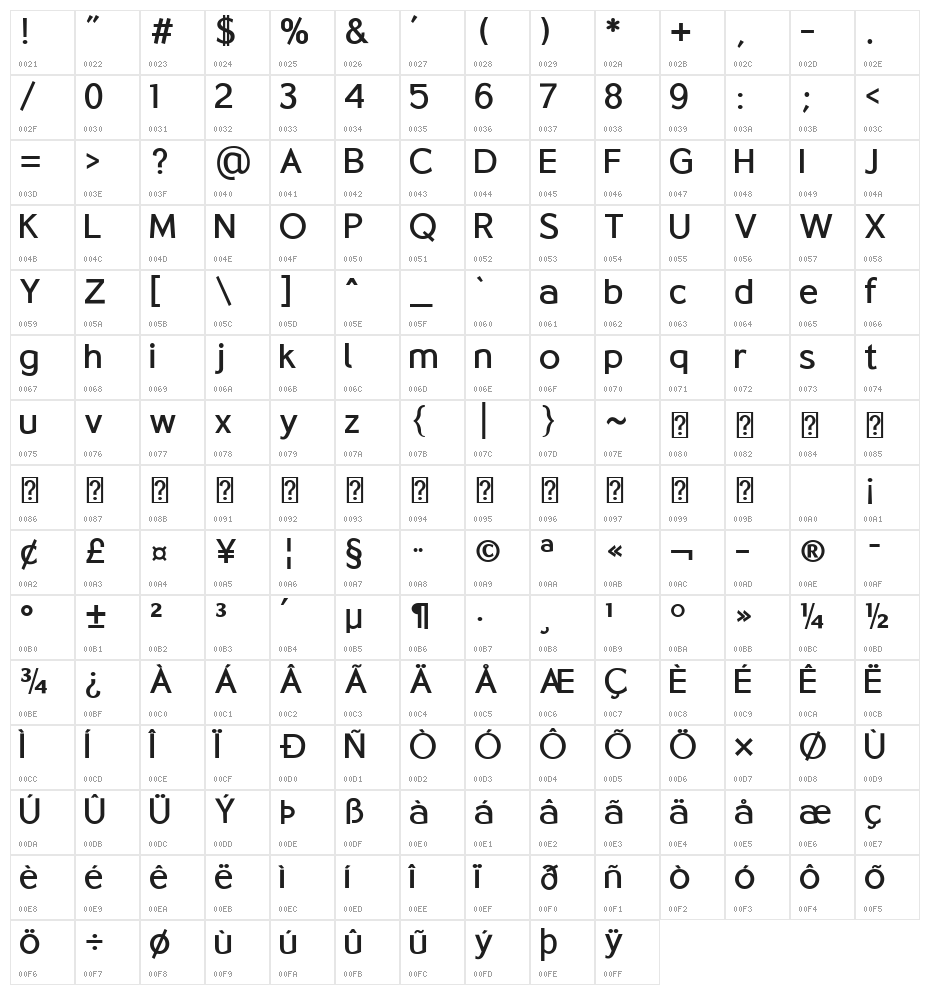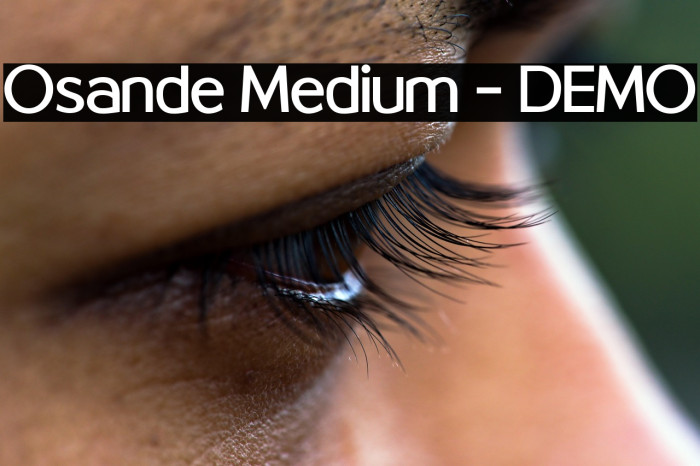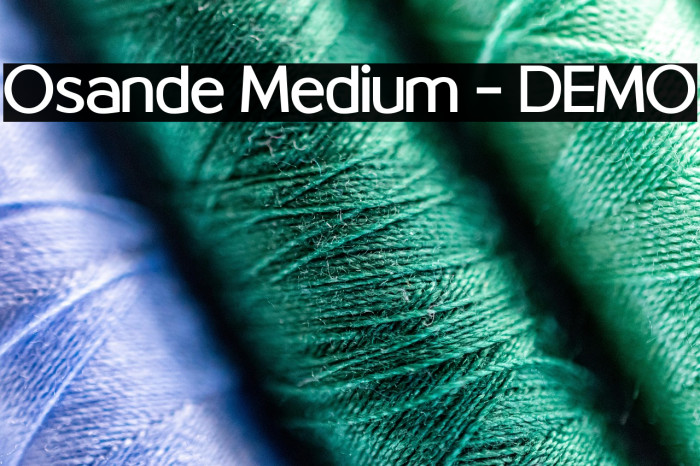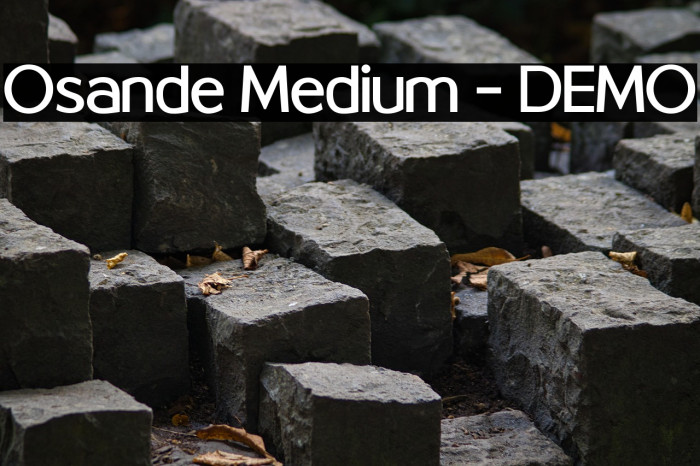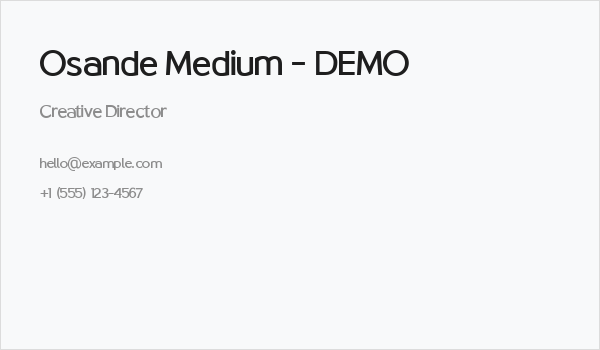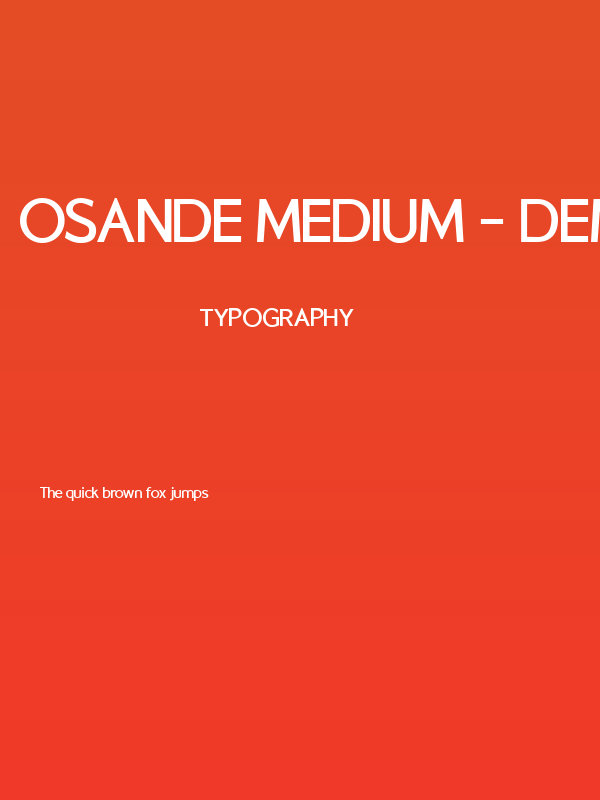
Osande Medium - DEMO Font
Osande Medium - DEMO Description
This font features a clean and modern sans-serif style with a balanced and uniform appearance. The characters are well-proportioned, offering a harmonious blend of curves and straight lines. The uppercase letters are bold and assertive, while the lowercase letters maintain a friendly and approachable feel. The numerals are clear and easy to read, making them suitable for various applications. Special characters are included, enhancing the font's versatility. Overall, this font exudes a contemporary and professional vibe, making it ideal for both digital and print media.